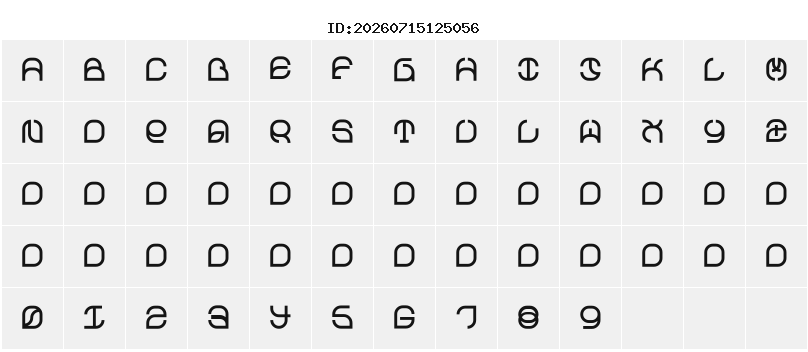
• Font Name: Z_exMastang
• Full Font Name: Z_exMastang
About Z_exMastang.ttf
Z_exMastang.ttf is a modern, elegant sans-serif font designed for ultimate readability and visual harmony. Perfect for branding, headlines, web design, and print materials.